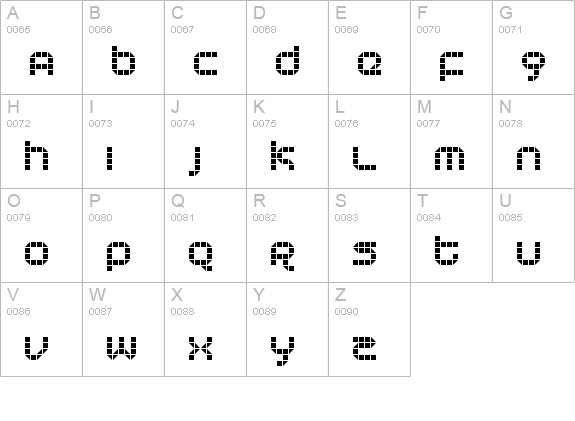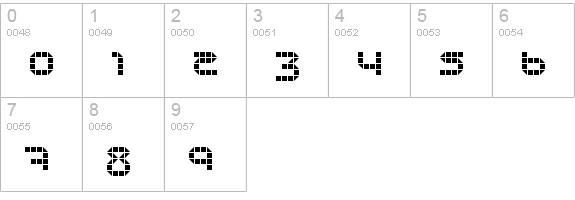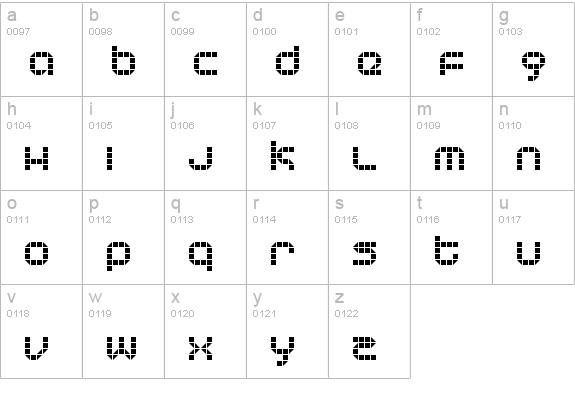
Tranceform Font Details
Tranceform font is a mesmerizing typeface that effortlessly captures the essence of the trance music scene. Its sleek and futuristic design is a perfect representation of the pulsating beats and hypnotic melodies that define this genre. With its bold and sharp letterforms, Tranceform font demands attention and creates an electrifying visual impact. This font is not only visually captivating but also versatile, making it suitable for a wide range of design projects. Whether you are designing album covers, event posters, or promotional materials for music festivals, Tranceform font will add a touch of excitement and energy to your creations. Its unique and edgy style allows you to stand out from the crowd and make a lasting impression. One of the best things about Tranceform font is that it is freely available to download at FontsMarket.com. This means that you can easily access and use this captivating typeface without any cost. FontsMarket.com is a trusted source for high-quality fonts, and they offer a wide selection of free fonts that can enhance your design projects. So, if you are looking to add a touch of trance-inspired magic to your designs, look no further than Tranceform font. Download it for free at FontsMarket.com and let the captivating power of this font elevate your designs to new heights.